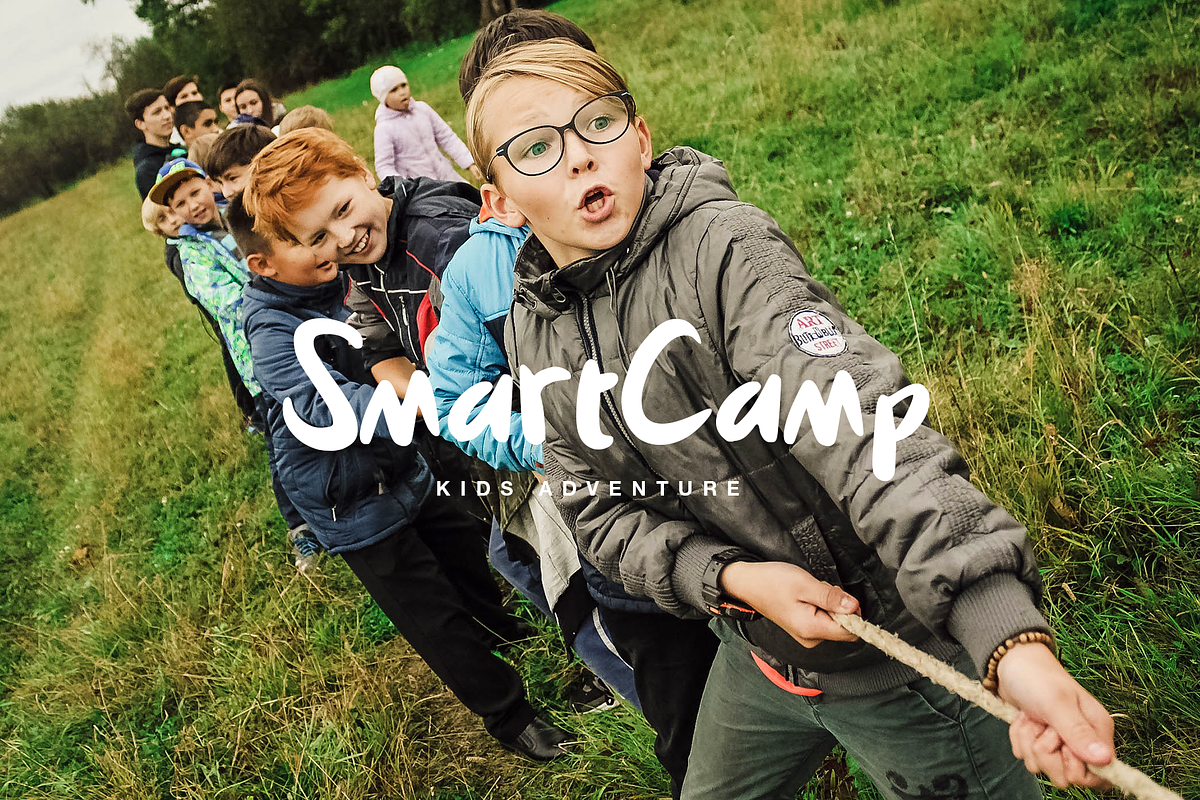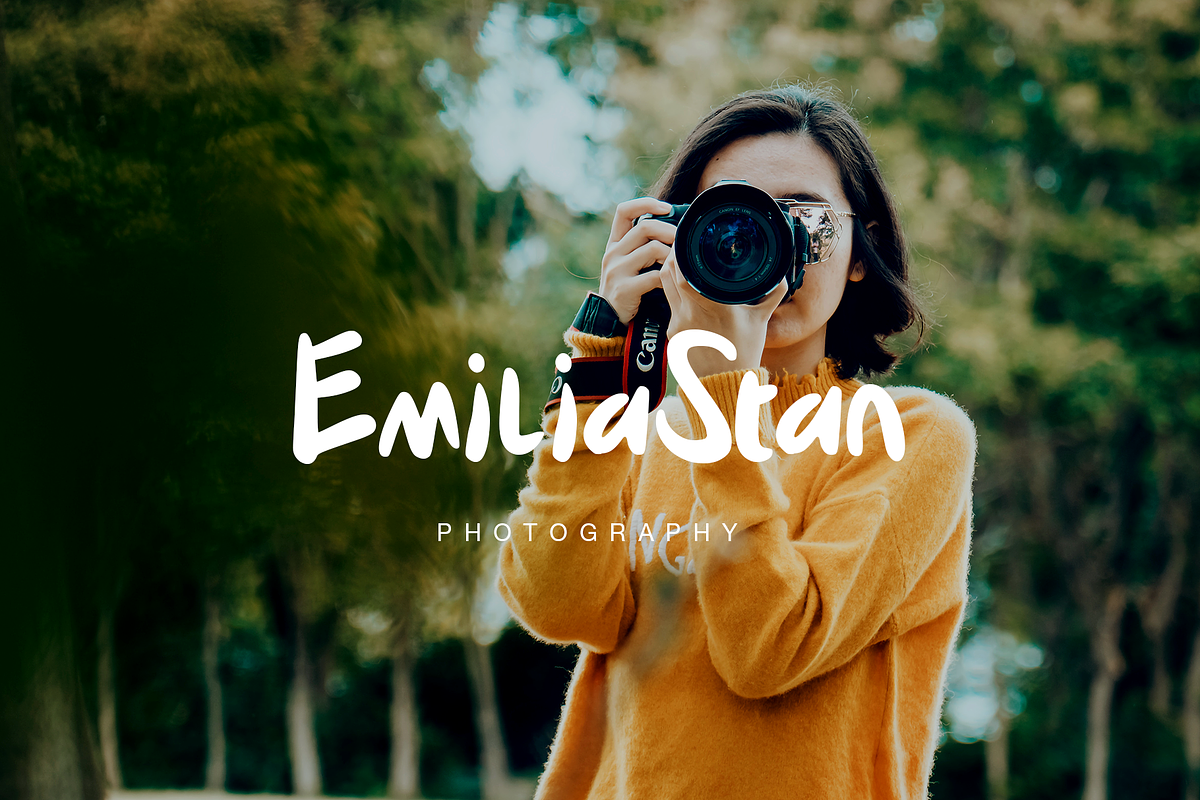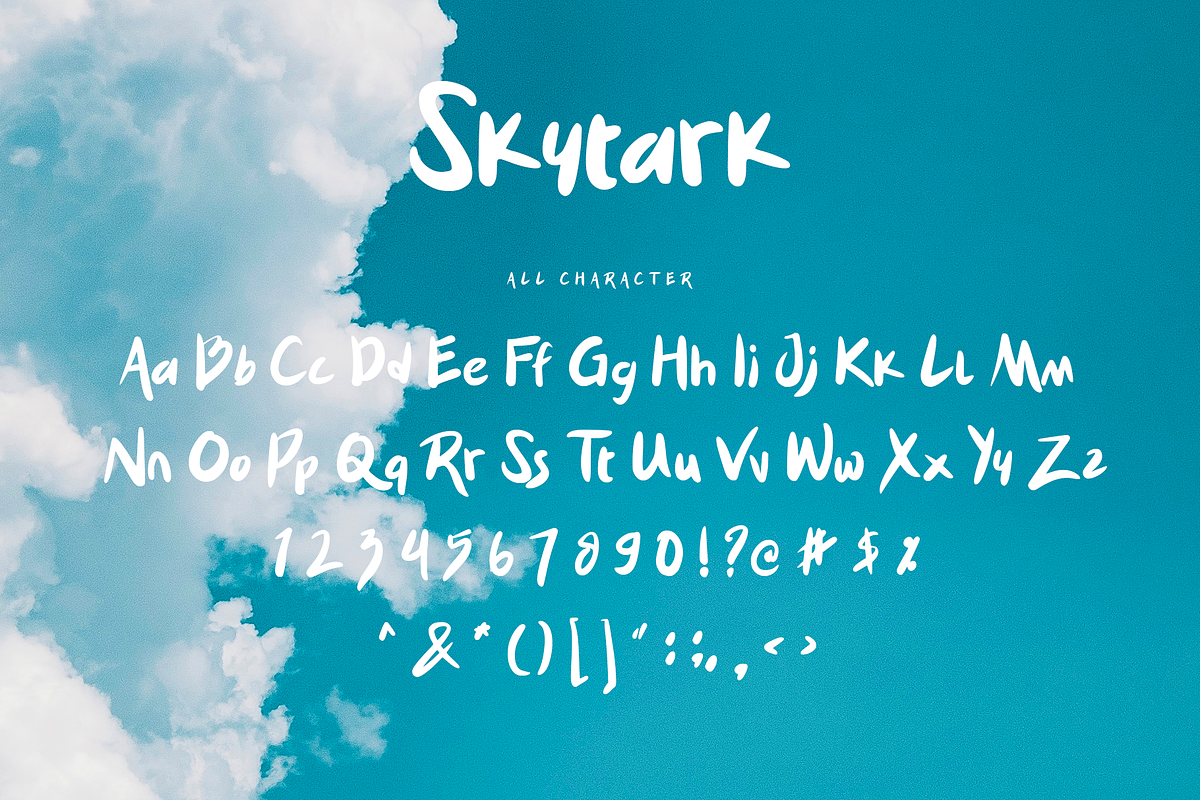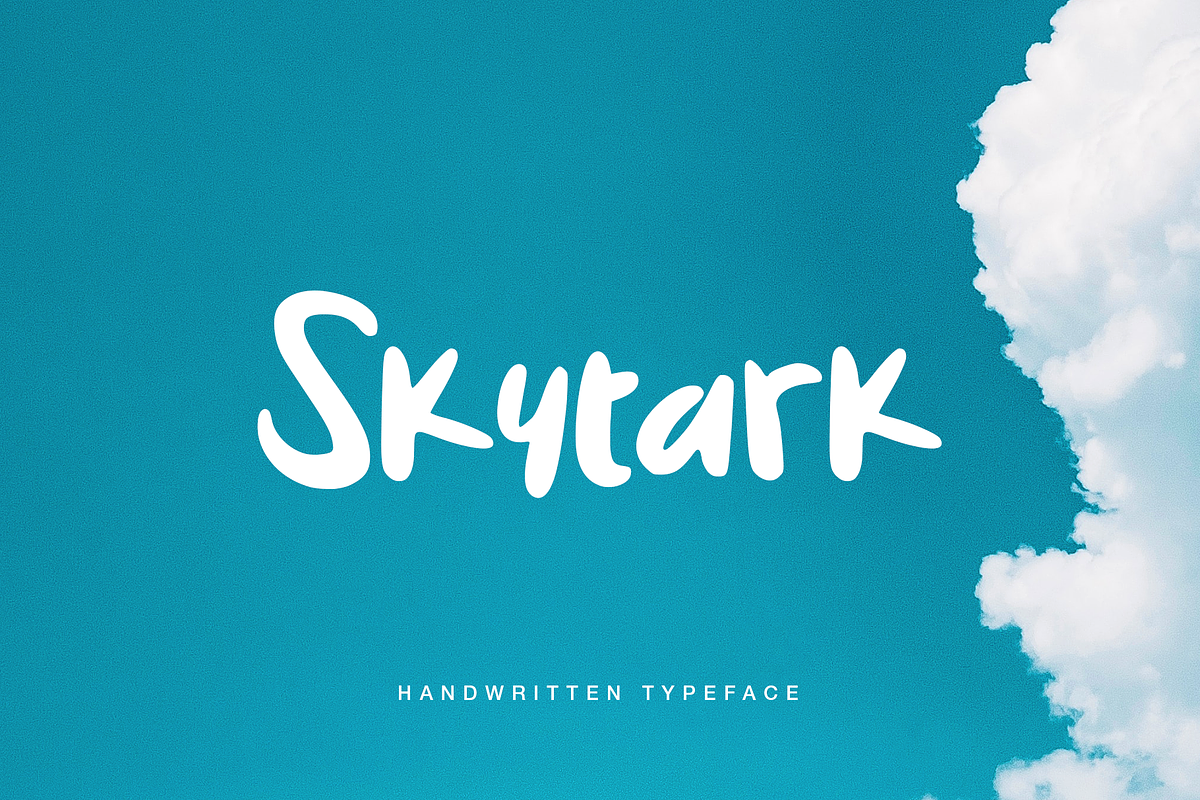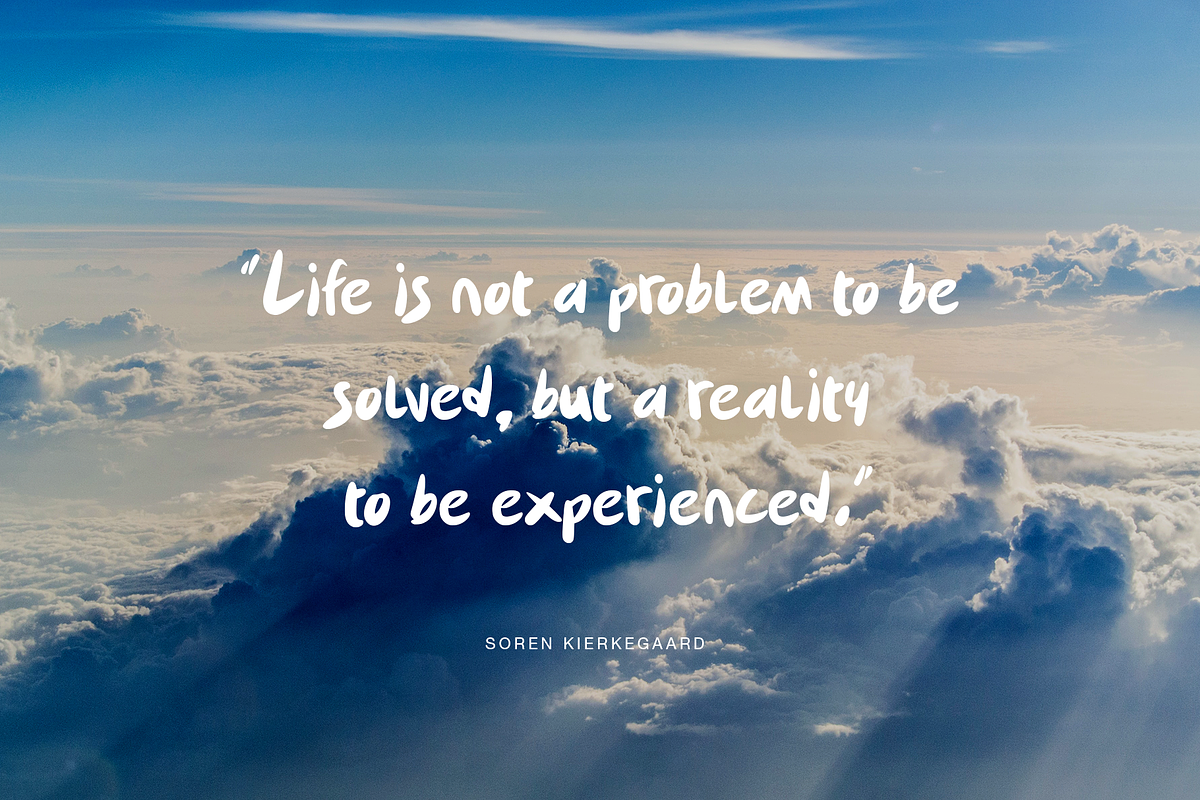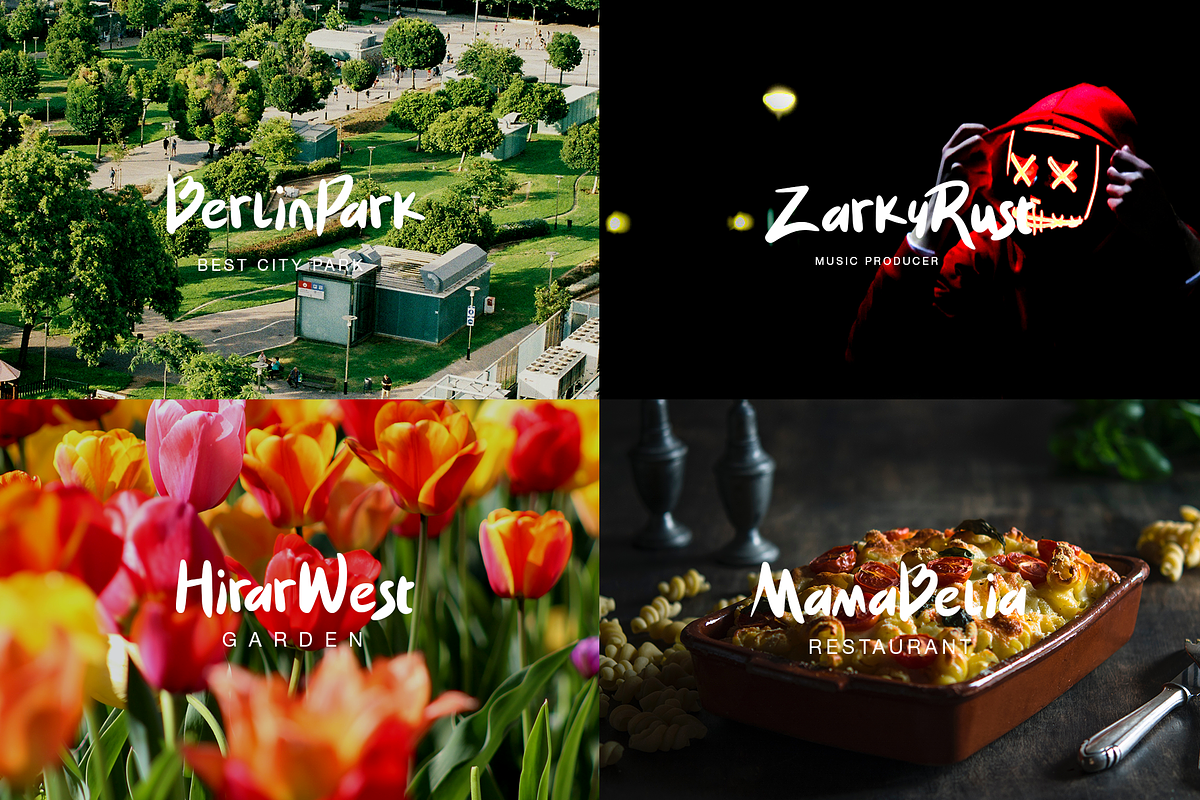
Skytark - Display Typeface
Introducing Skytark Handwritten Typeface is a clean and bold brush script that written casually and modern. Skytark perfect for Logo Design, Branding Design, Quote Lettering, and Display Title.
Skytark - Display Typeface by sentype fits naturally into Branding, posters, packaging, typography.